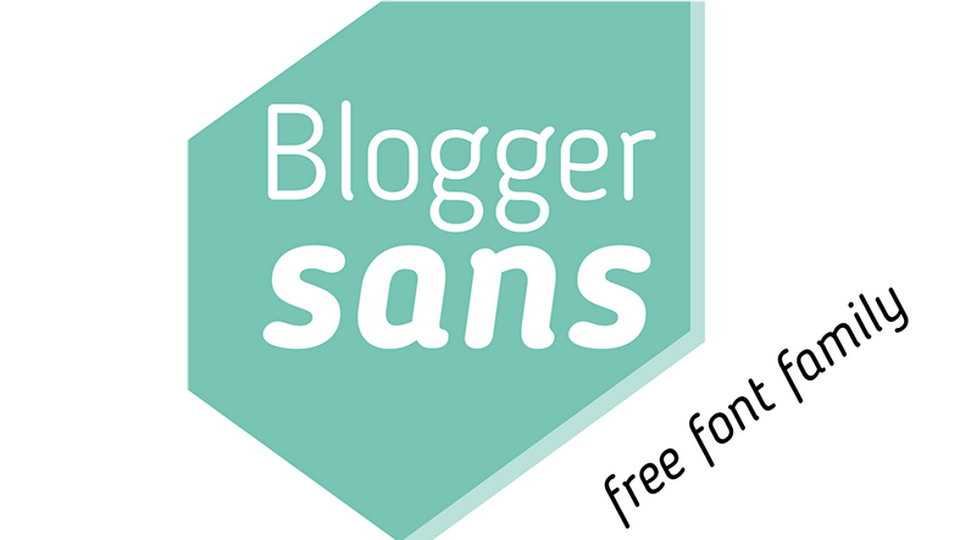
Download Blogger Sans font family, a sans serif typeface inspired by the clarity and legibility of the popular font Dosis with an additional support of the lost Cyrillic languages.
Designer: Sergiy Tkachenko